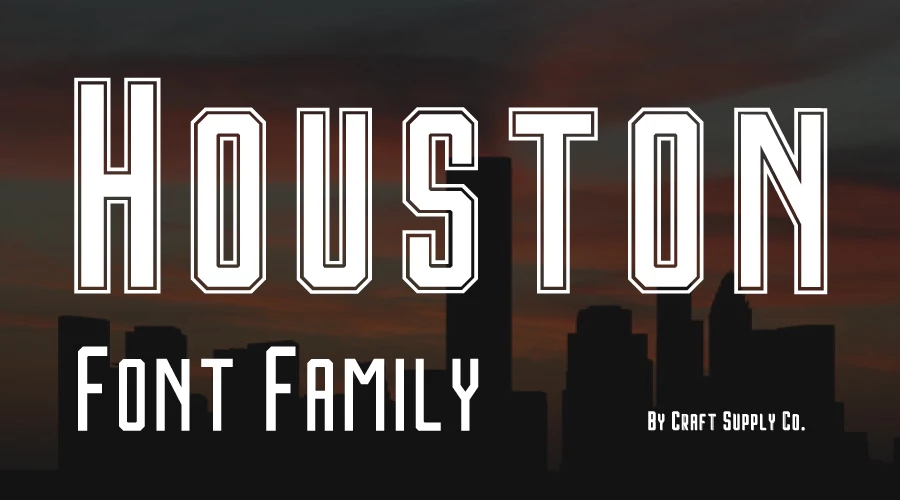
Let me introduce you to Houston font! Craft Supply Co. created and shared it. Houston is a modern modular sans serif family inspired by sports graphics from the United States. Houston is built on a small solid font that incorporates a number of different styles. The typeface is available in a variety of file formats. Houston Regular otf & ttf, Houston Double otf & ttf, Houston Outline otf & ttf, and Houston Shadow otf & ttf are all variations of Houston Regular otf & ttf.
The Font has several features, including All Caps Fonts, Standard Ligatures, and Numerals and Punctuations (OpenType Standard). Accents (Multilingual characters) and PUA Encoded are two more impressive features of this typeface. The Font is also compatible with Windows, Apple/Mac OS X, Linux, Cricut, Silhouette, and other cutting machines. This typeface is a versatile option that can be used in a variety of situations. It is a good fit for practically any project.
The Font can be used for logos, greeting cards, quotes, posters, branding, name cards, stationery, design titles, blog headers, art quotes, and typography, among other things. This Font is perfect for producing a Wedding card, package design, brand identification, craft design, DIY project, book title, pop, vintage design, or retro design.
Houston Font is a modern modular sans-serif font family that is inspired by American sports graphics. The font is characterized by its compact solid structure, which makes it ideal for use in a variety of applications, such as headlines, logos, and body text. It is suitable for logos, headlines, posters, and other creative projects that need a touch of personality and dynamism. Houston font is a great choice for anyone who wants to create a sporty and modern look with a retro flair.